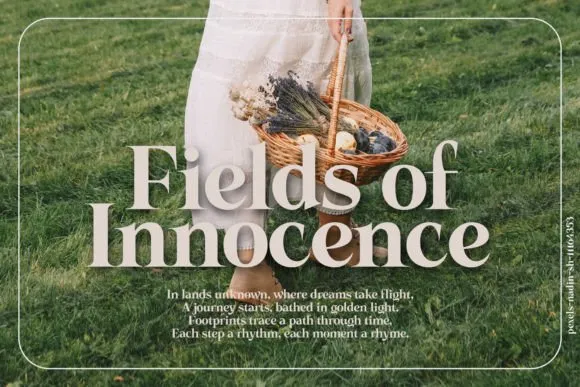
Hawthorne Vintage Font
Presenting Hawthorne Vintage Font of a kind Serif, a text style that murmurs immortal class and sentimentality into each letter.
Roused by the exemplary serifs of the past, this textual style easily mixes rare enchant with current complexity.
Hawthorne Vintage Font elegant bends, carefully created subtleties, and unpretentious serifs pursue it the ideal decision for projects that request a hint of refinement.
Embrace the charm of the past and lift your plan projects with Hawthorne One of a kind Serif, where immortal magnificence meets contemporary imagination.